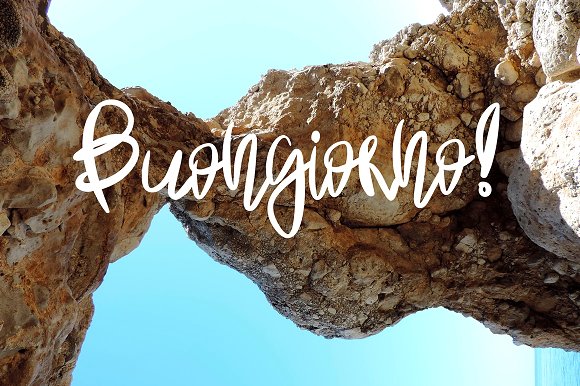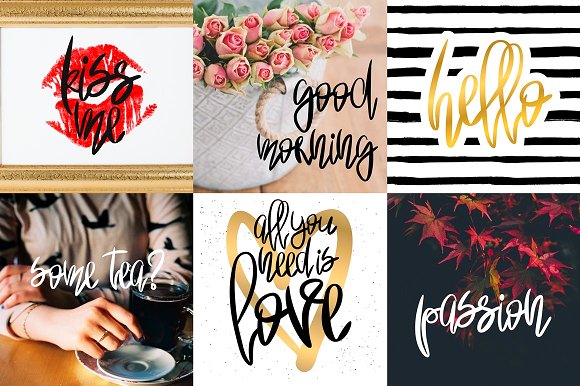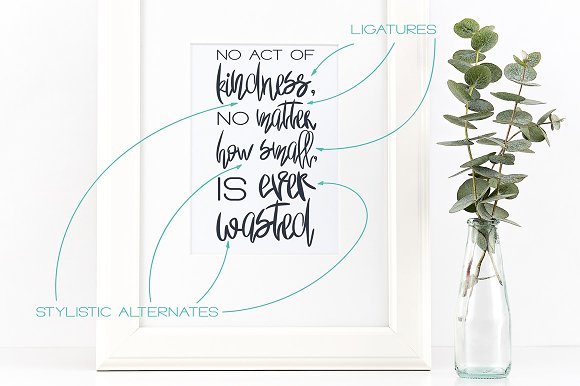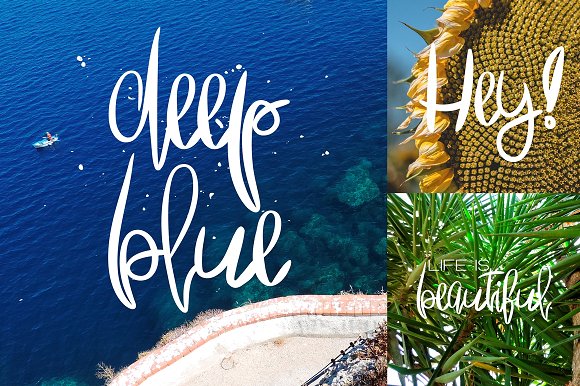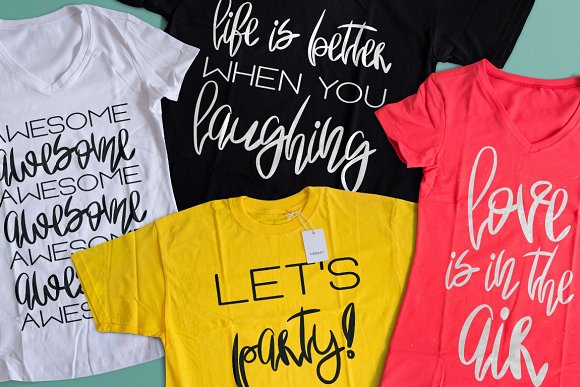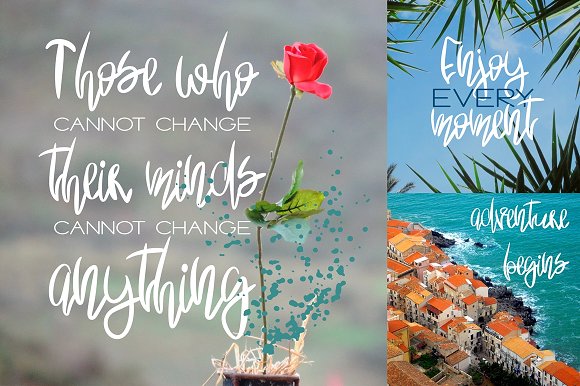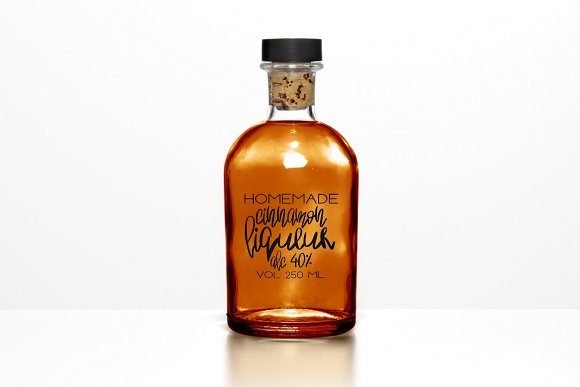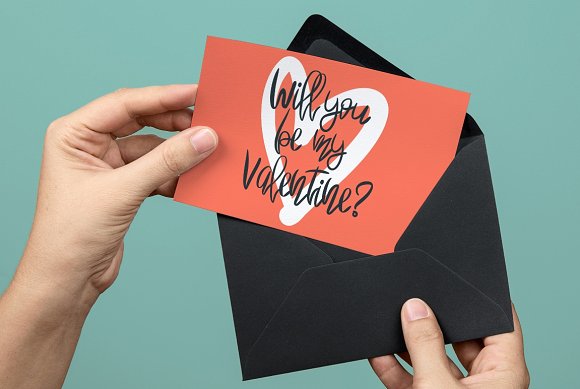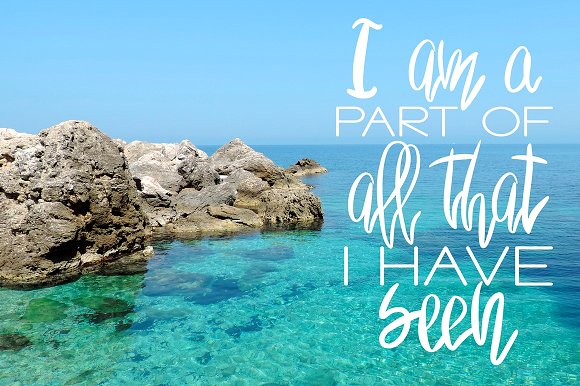
Palma Nana Font
About Palma Nana Font
The Palma Nana Font Duo includes 2 stunning typefaces:
Palma Nana Script, a quirky hand-drawn script.
Palma Nana Sans, a thin sans serif font.
Both fonts are very complementary and great to be used in a single project.